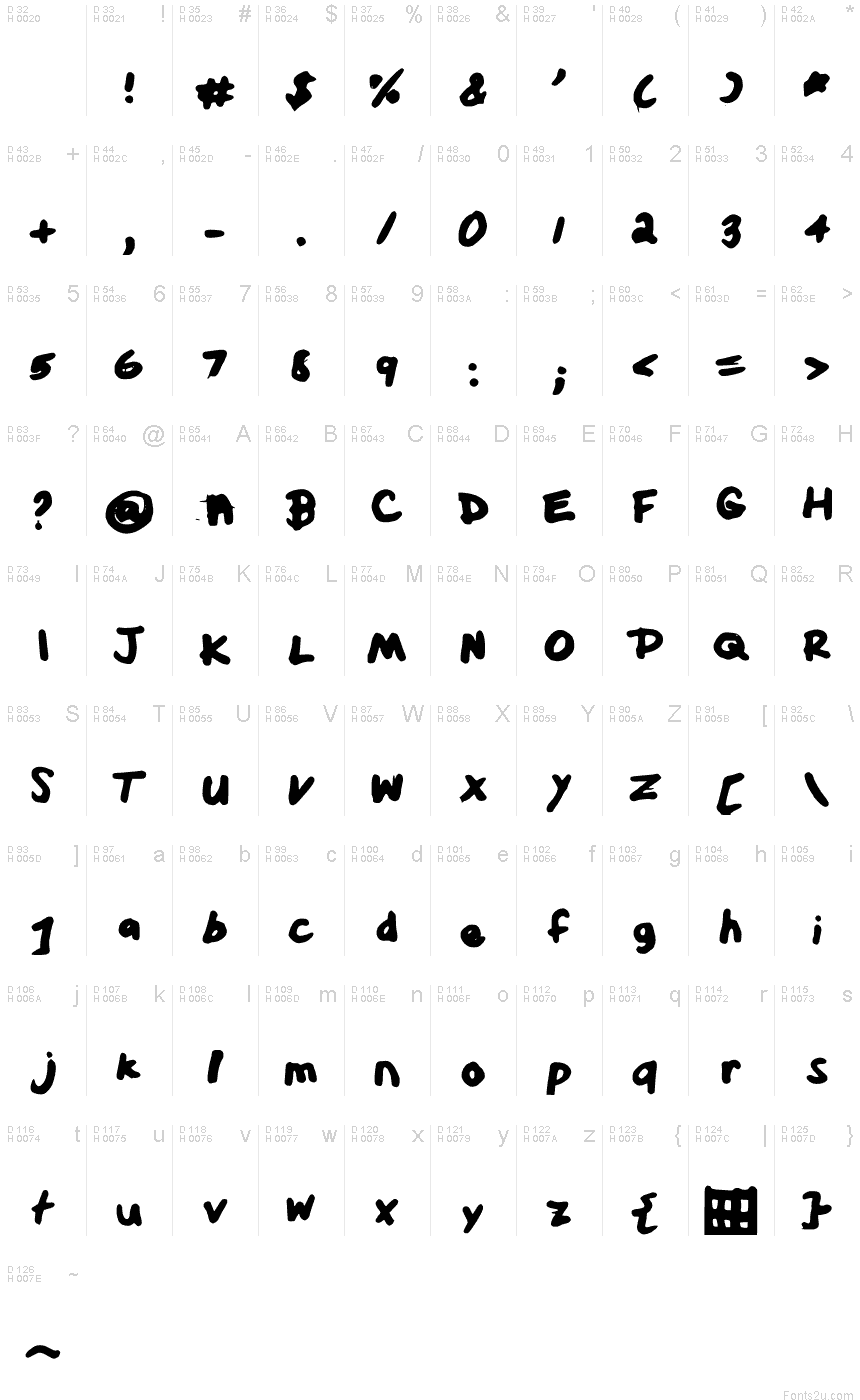
LilSister is a free handwritten display font with thick, uneven strokes and a cheerfully unruly silhouette. Rounded forms, shifting widths, and loose joins make the lettering look quickly drawn with a broad marker.
Its playful, homemade character suits children's entertainment, casual food packaging, and craft-themed event posters. The letters have plenty of bounce. On merchandise, they can turn a simple phrase into an informal emblem, and their lopsided shapes give small brands a friendly, handmade product identity.